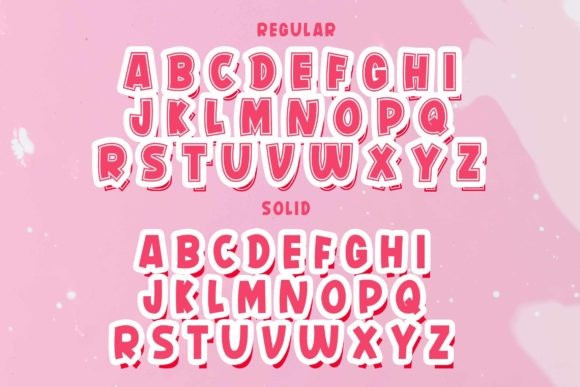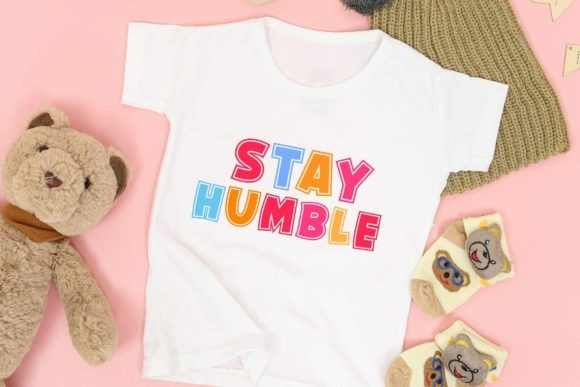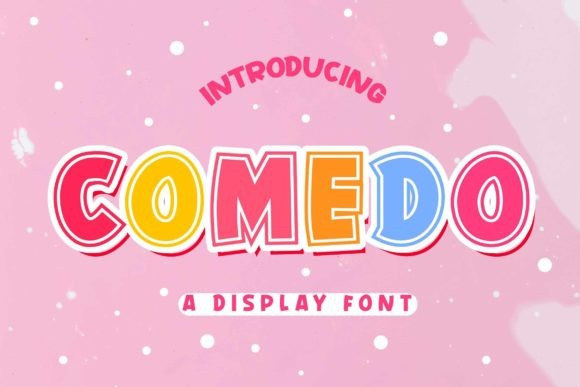
Comedo Display Font
Comedo Display Font is a playful, colorful, and attractive display font. Versatile and easy to read, it is suitable for logo designs, cartoons, children’s themed designs, and many more. Add it to any of your creative designs, and it has the potential to become your favorite font, whatever the occasion!